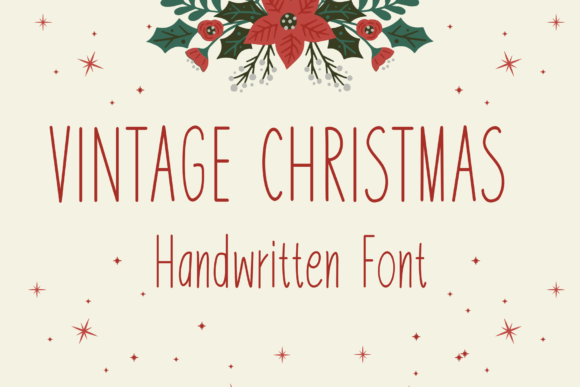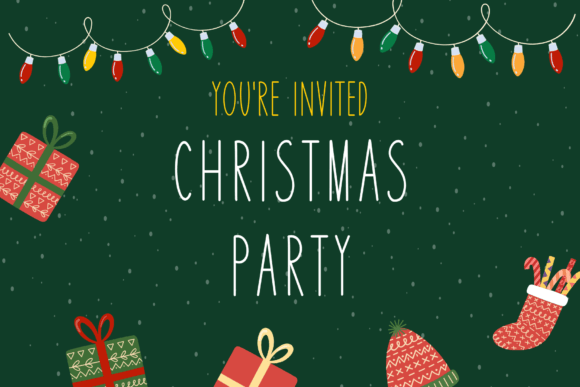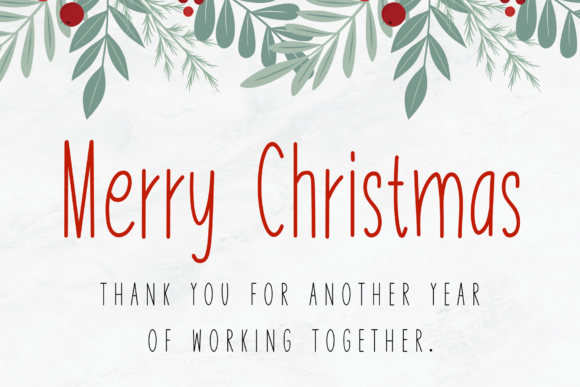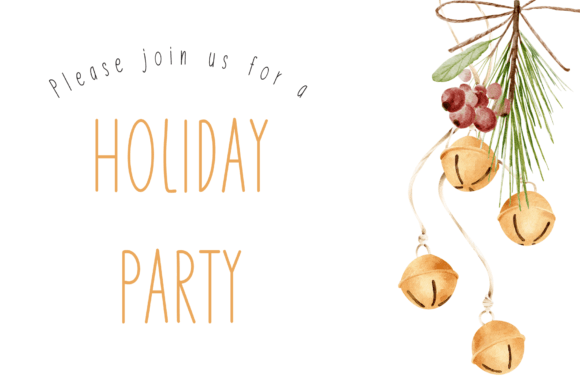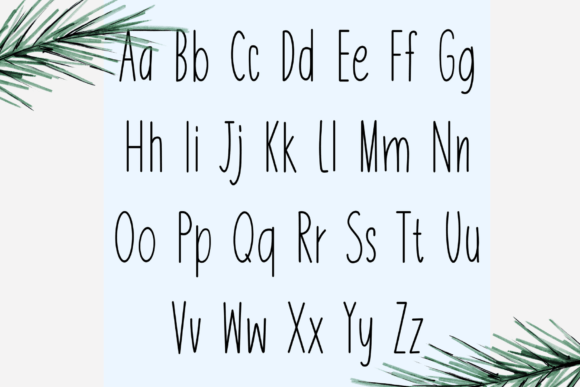
Vintage Christmas Font
Vintage Christmas font is a sweet and friendly handwritten display font. Cute and fun, this font is ideal for crafts, digital design, presentation, or writing wedding invitations, cards, or any other design that might need a fun touch! It is ideal for use in school for both teachers and students. It will work great for comic book style, games online, love shirts, posters, and movie titles.